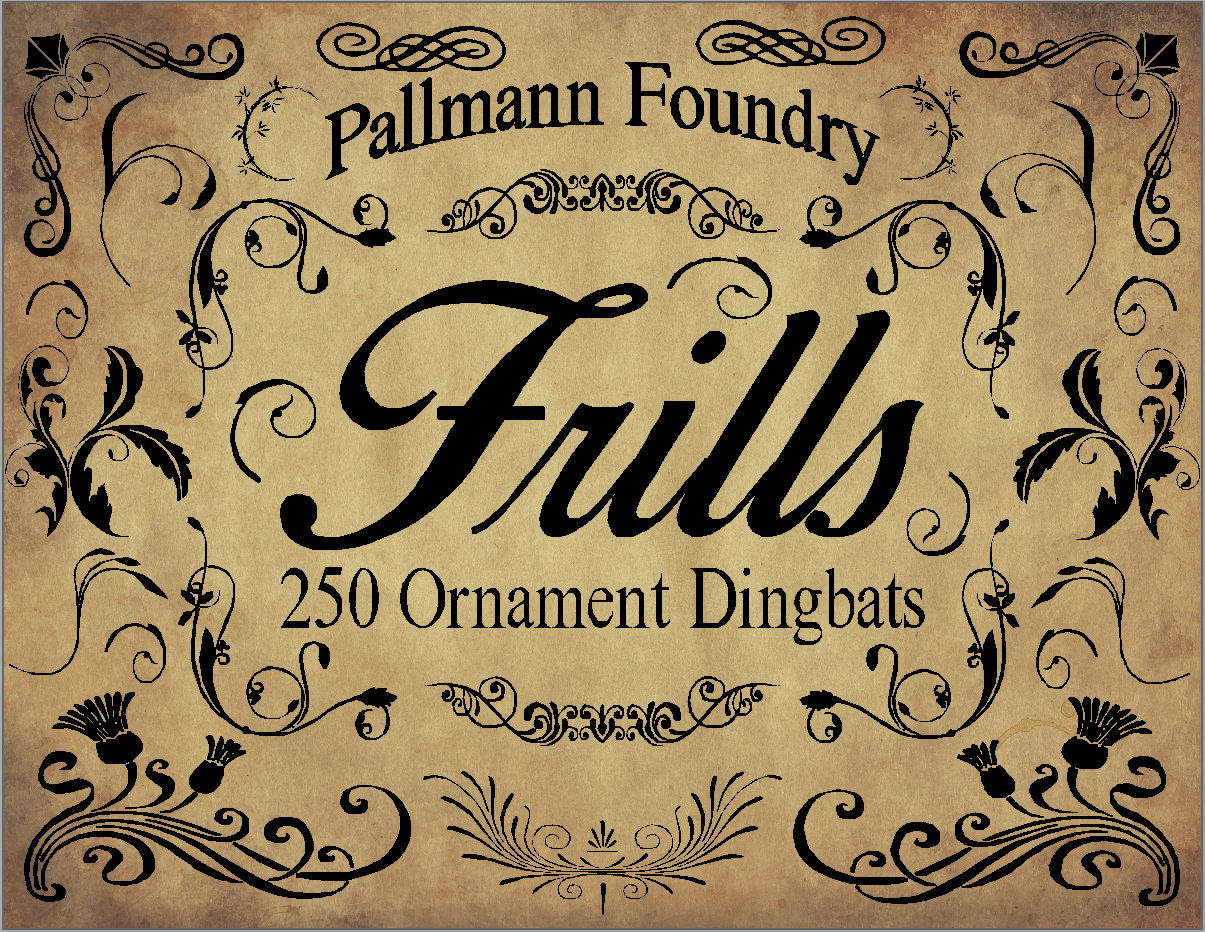
This week's dingbat is Frills. Fancy symbols. Great for borders, separators or just decorating you project.Free for personal use. Get it here: pallmannfoundry.blogspot.com/2…